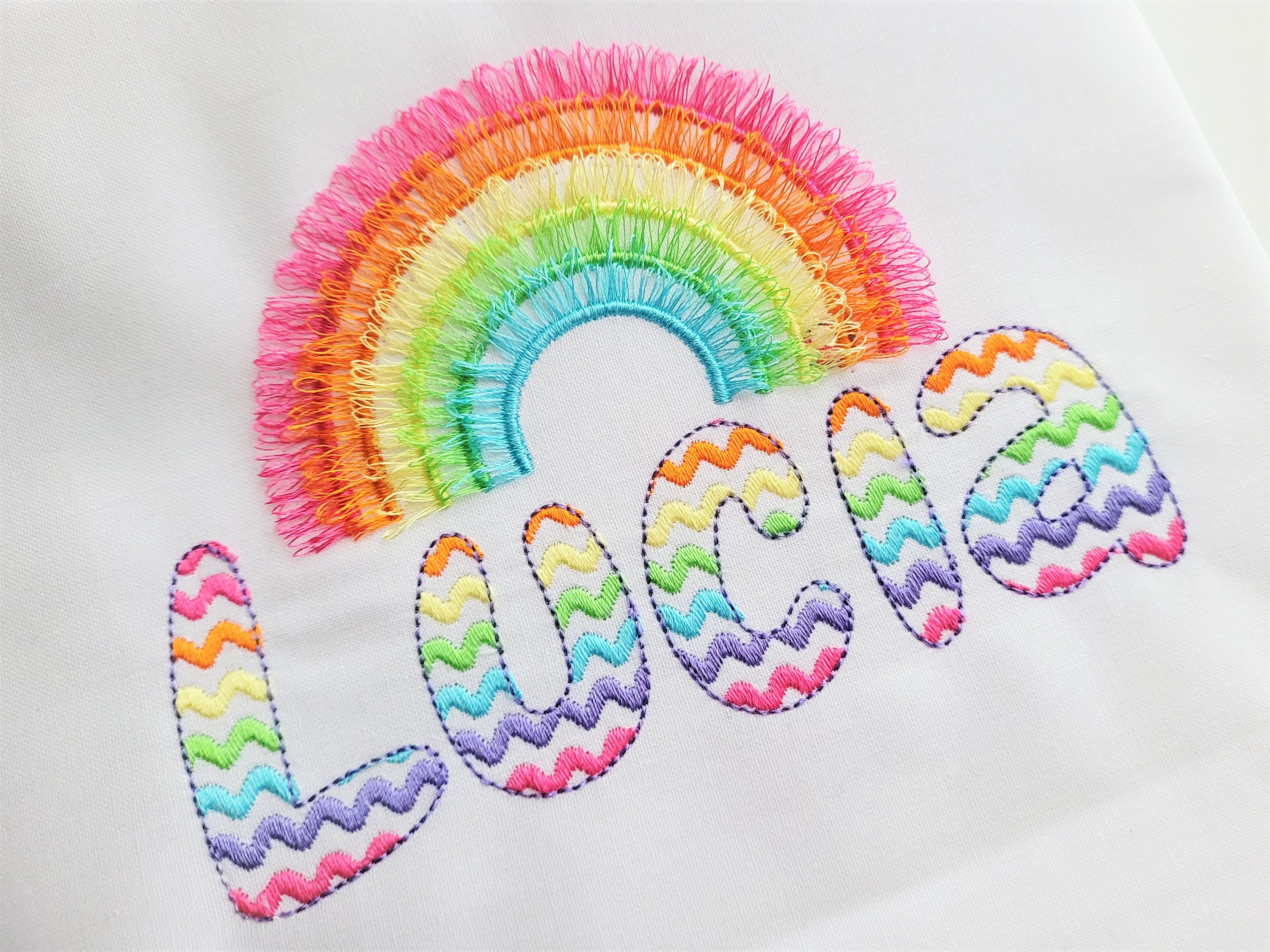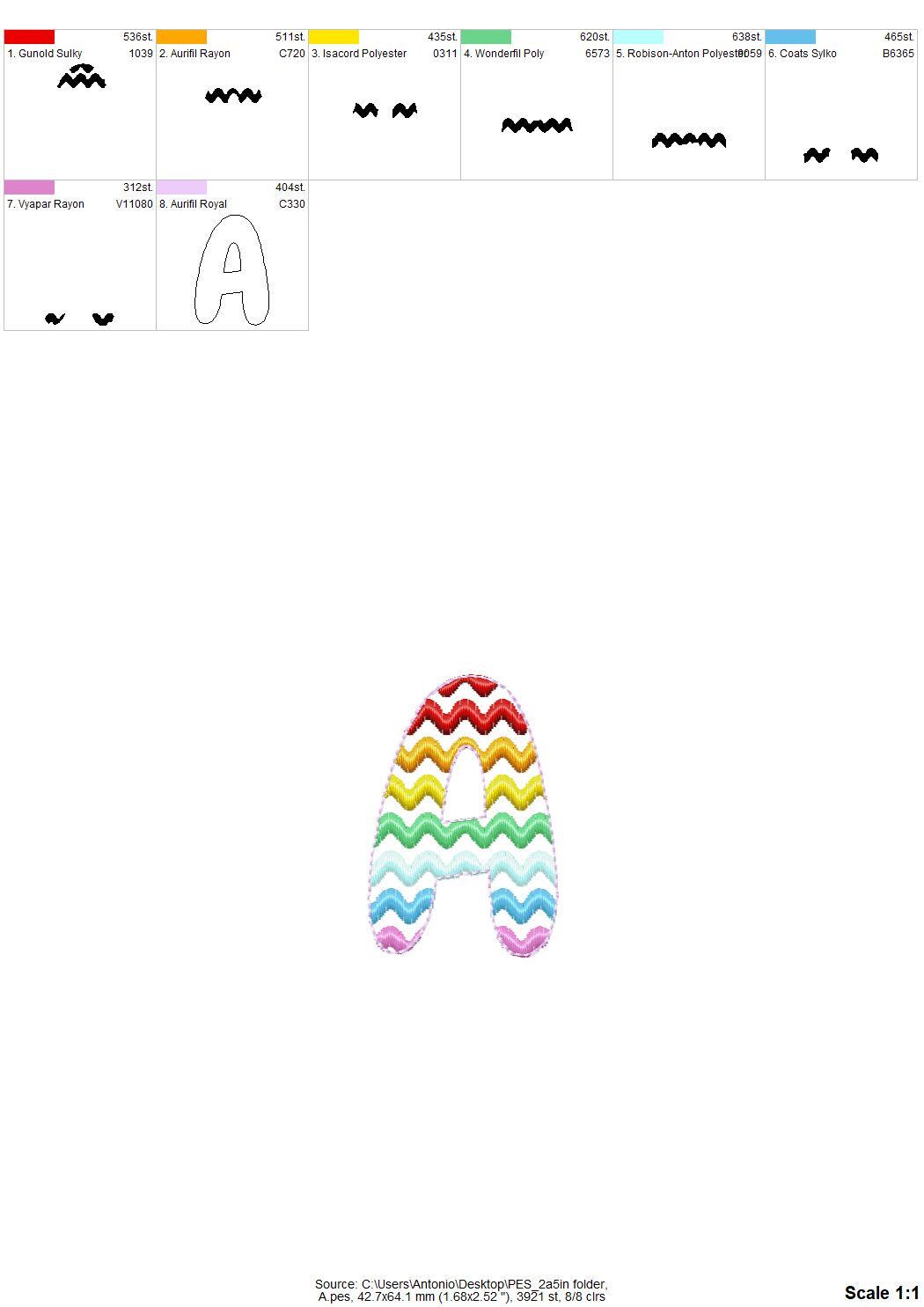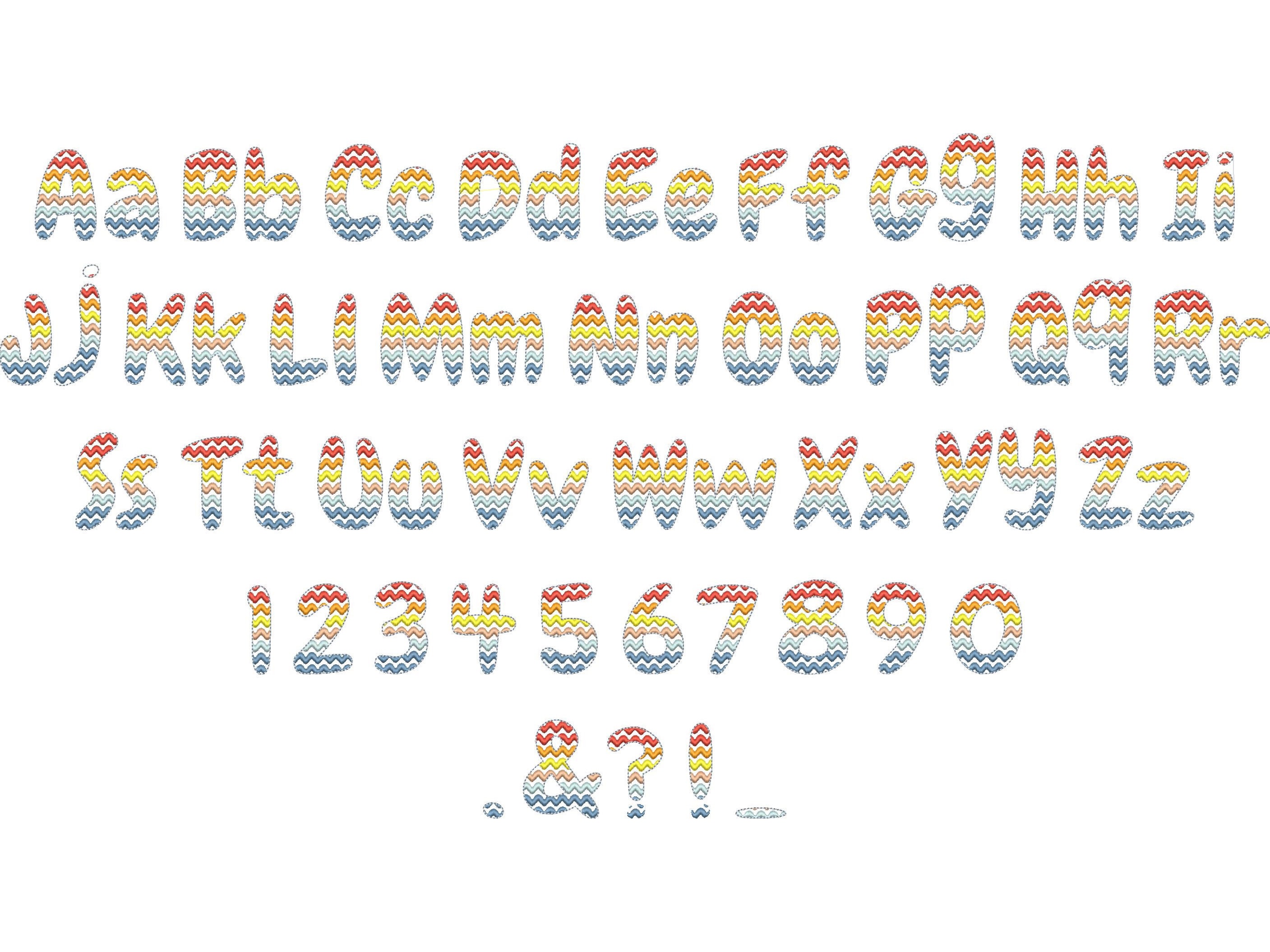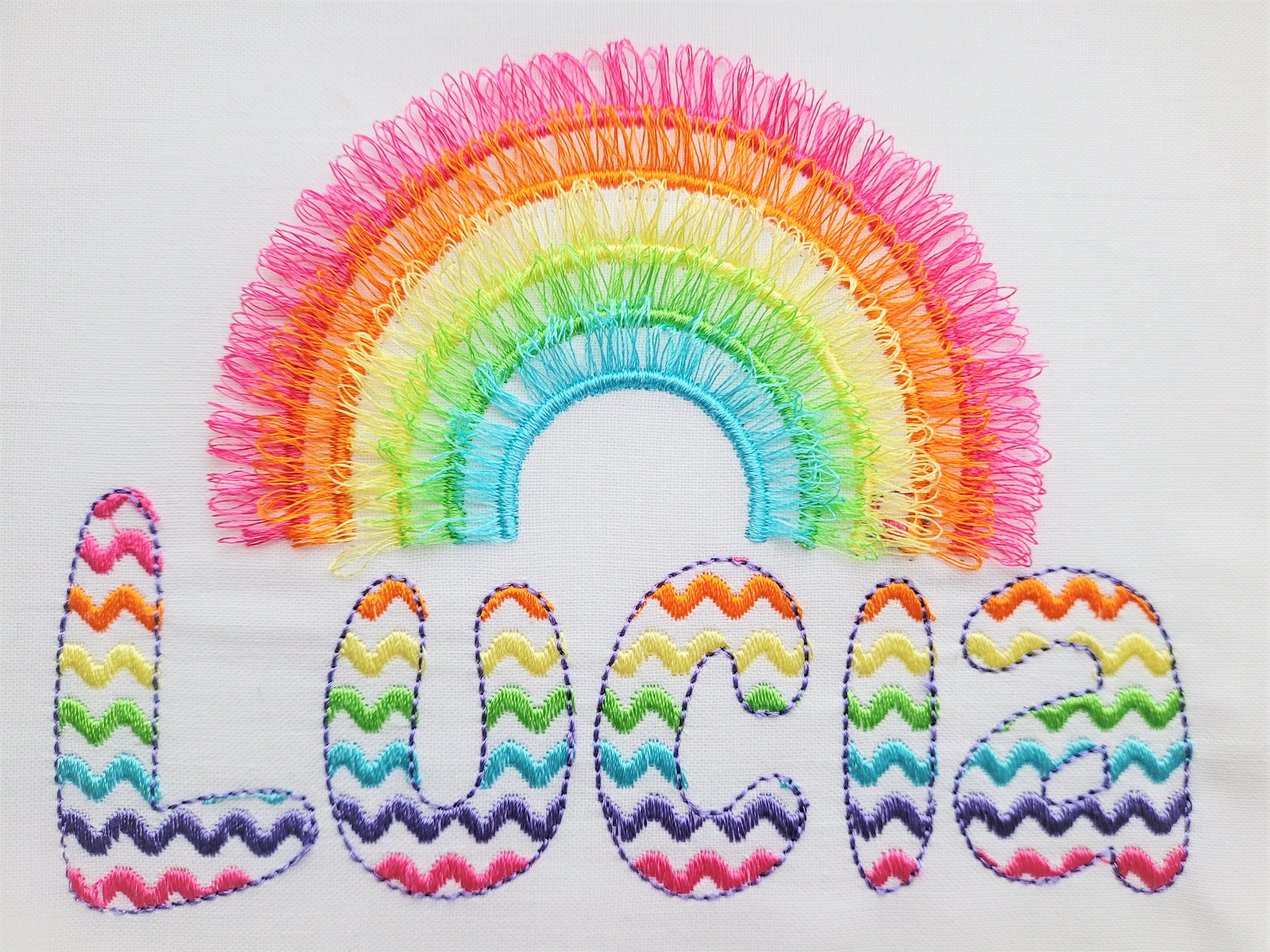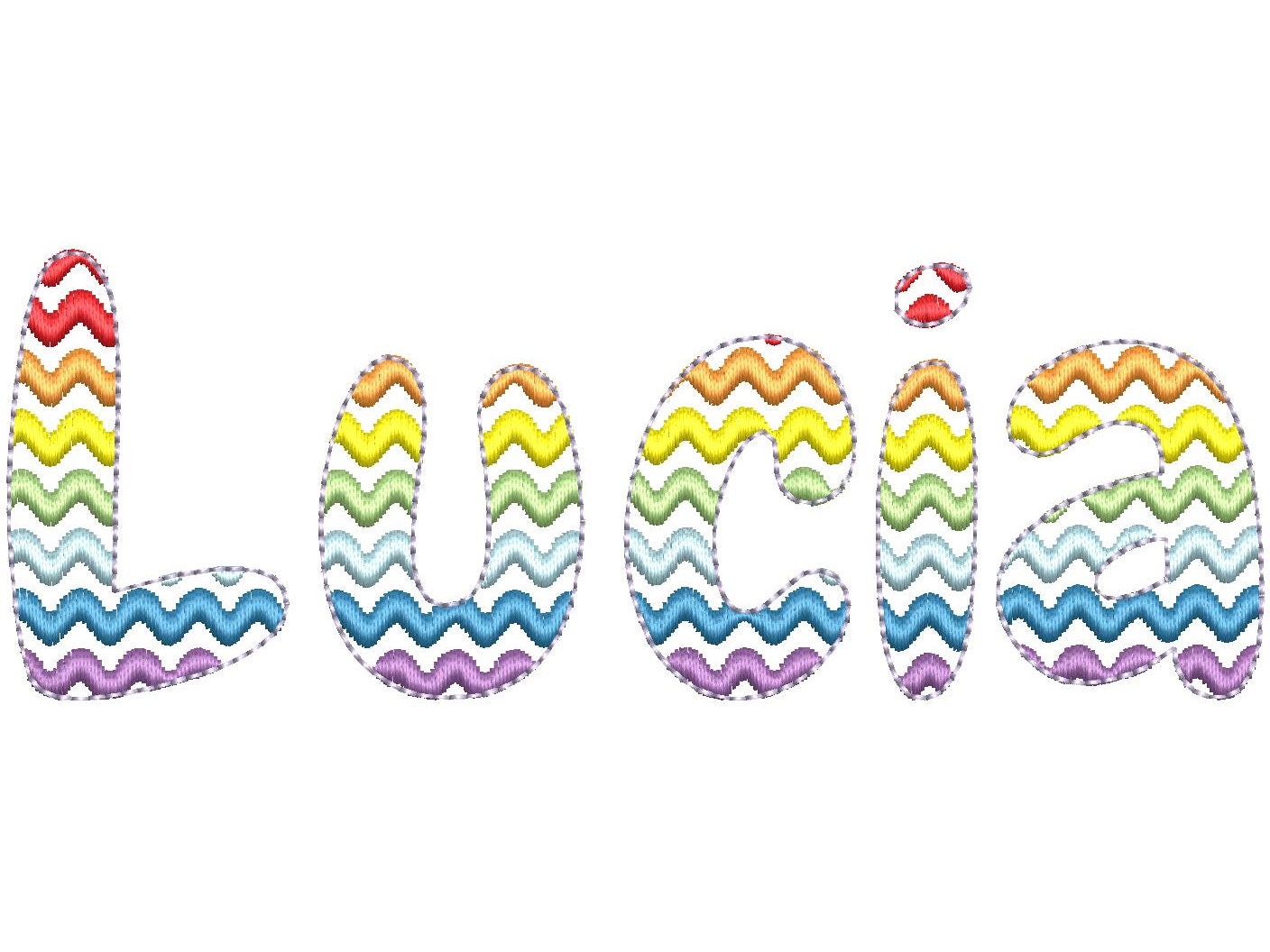
RIC RAC patterned Font monogram alphabet letters machine embroidery designs and raggedy applique designs colorful ruffle font BX included
Uppercase and lowercase letters, numbers, and punctuation.
These are quick stitch designs, look like laces, and the background fabric looks through. Stunning effect.
Ric Rac pattern is a part of the embroidery.
May also be used as raggedy edge applique. Just stitch and trim excess fabric.